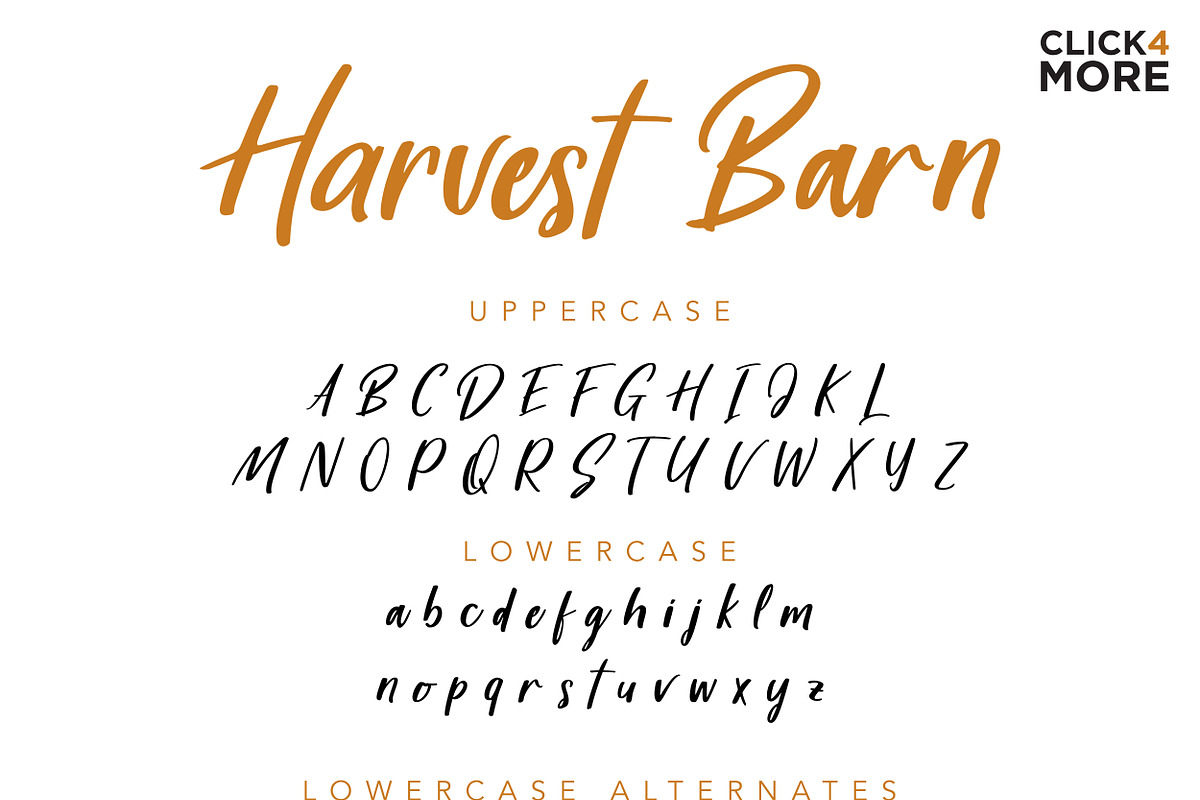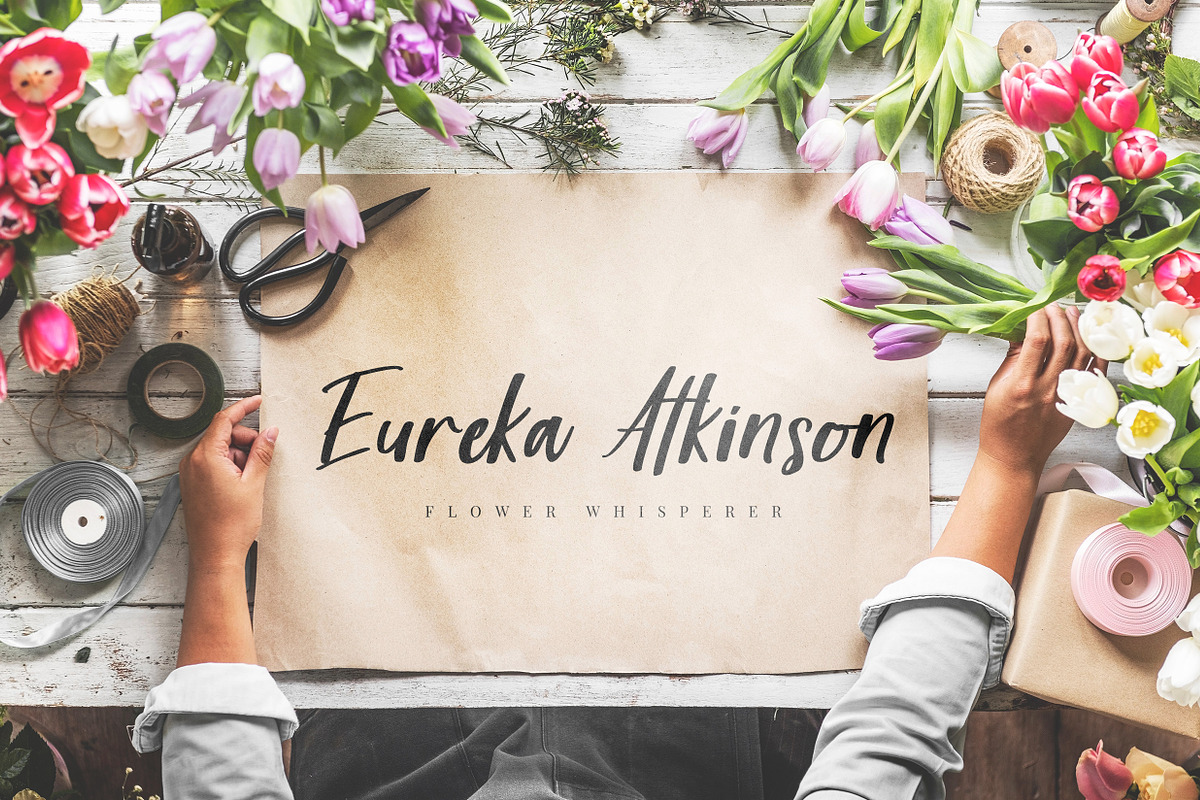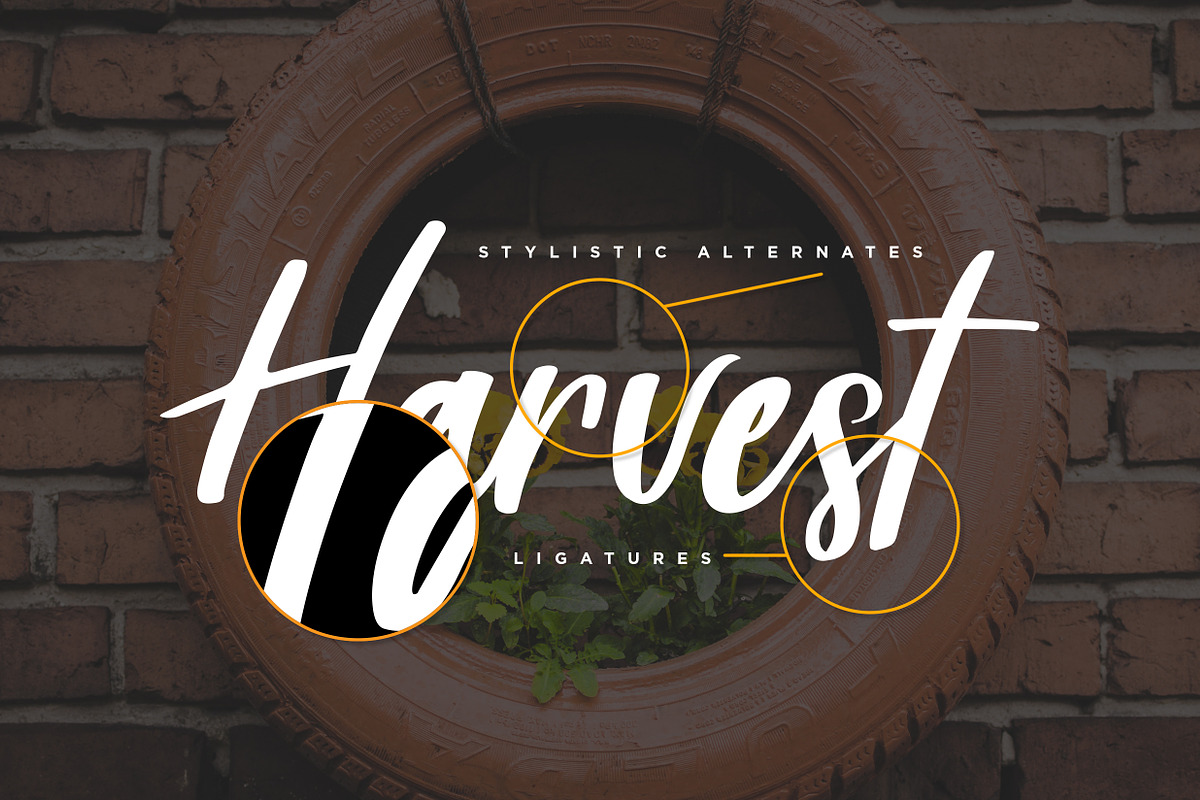
Harvest Barn - Farmhouse Casual
Harvest Barn, a fresh beautiful rustic farmhouse font. Inspired by the rustic home decor concept and farmhouse feels. It would be a perfect mate for branding, logo, rustic wedding concept, home decor, journal, poster quote, vintage flea market promotion, etc. So versatile, right?
Included Uppercase, Lowercase, Numbers & Punctuations, Multilanguage Support, Ligatures, and Lowercase Alternates. Check out the preview for more details.